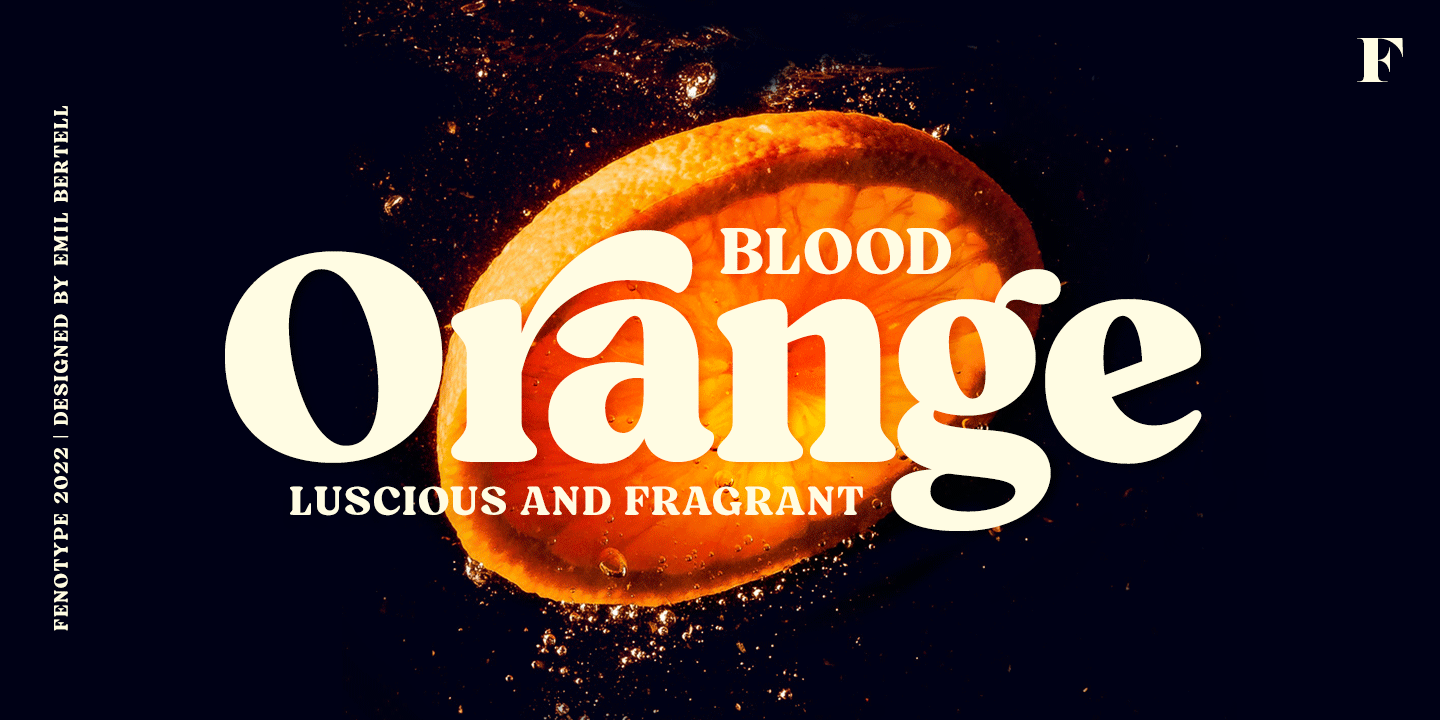
The Blood Orange Font excels in various design applications including citrus beverage branding, tropical fruit marketing, vibrant juice bar communications, fresh organic market materials, summer festival identities, tropical restaurant promotions, citrus health food signage, vibrant wellness documentation, tropical vacation packaging, and distinguished citrus projects that demand tropical authenticity and vibrant sophistication.
What makes the Blood Orange Font exciting is its vibrant embodiment of citrus energy and tropical fruit vitality through letterforms that capture the essence of rich orange hues and the refreshing zest of Mediterranean citrus culture. This typeface demonstrates exceptional vibrancy through carefully crafted characters that suggest the juicy burst of blood orange segments, the warm glow of Mediterranean sunshine, and the energizing freshness that makes citrus fruits so nutritionally valuable and sensually appealing. The font's citrus personality makes it perfect for beverage companies and tropical brands seeking to communicate fruit authenticity, vibrant energy, and the kind of citrus vitality that creates memorable tropical experiences through typography that literally bursts with orange freshness.
The Blood Orange Font family typically includes vibrant weight variations that enhance the citrus aesthetic, featuring tropical styling options and extended character sets optimized for beverage communications and fruit applications. These family options often include citrus-inspired alternates, tropical symbols, and vibrant decorative elements that provide designers with comprehensive tools for creating authentically tropical typography that celebrates citrus culture while maintaining contemporary design appeal and fruit credibility.
Beverage professionals and tropical brand organizations consistently select Blood Orange Font Free Download for projects requiring typography that communicates citrus authenticity and tropical sophistication. This typeface delivers exceptional performance in beverage marketing, tropical branding, and vibrant communications where establishing freshness and creating energizing citrus atmosphere is essential for tropical engagement. The font's orange character makes it particularly effective for juice bar and market applications. Download Blood Orange Font Free Download today to access this vibrantly tropical typeface that transforms citrus communications with its orange elegance and tropical sophistication, creating compelling fruit experiences that honor the magnificent vitality of Mediterranean citrus while celebrating the vibrant energy that defines authentic tropical culture and citrus excellence.